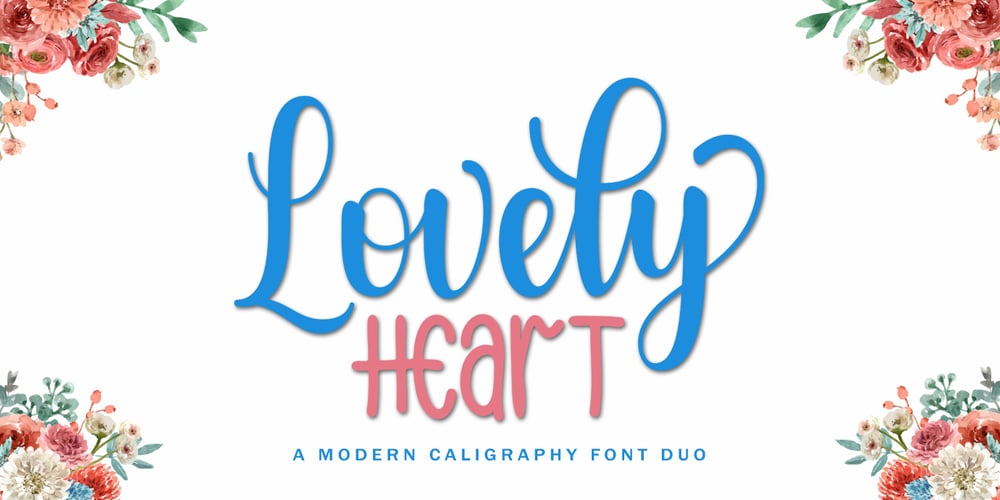
Lovely Heart Font Family was designed by Muhajir and published by Skinny Type. Lovely Heart contains 2 styles and family package options. Lovely Heart Font Duo is a sweet and elegant font. It has an authentic feeling and a lovely touch. It is perfect for any design project, such as wedding invitations, valentine’s day, logos, branding, social media, stickers and so on.Lovely Heart includes 2 script and sans fonts.Features:+ Can be used in any software, such as Adobe Photoshop, Illustrator, SIlhouette Studio, even Microsoft Word, PowerPoint and others.+ Multilingual glyphs.HOW TO ADD EXTRA GLYPHS:PC: Uses a character map. It’s easier to use the UWP Character Map (Free Download from Microsoft store) https://www.youtube.com/watch?v=uXqN6UY8ZMgMac: Using Font Book https://www.youtube.com/watch?v=Rs85wbS59T8GreetingsSkinny Type